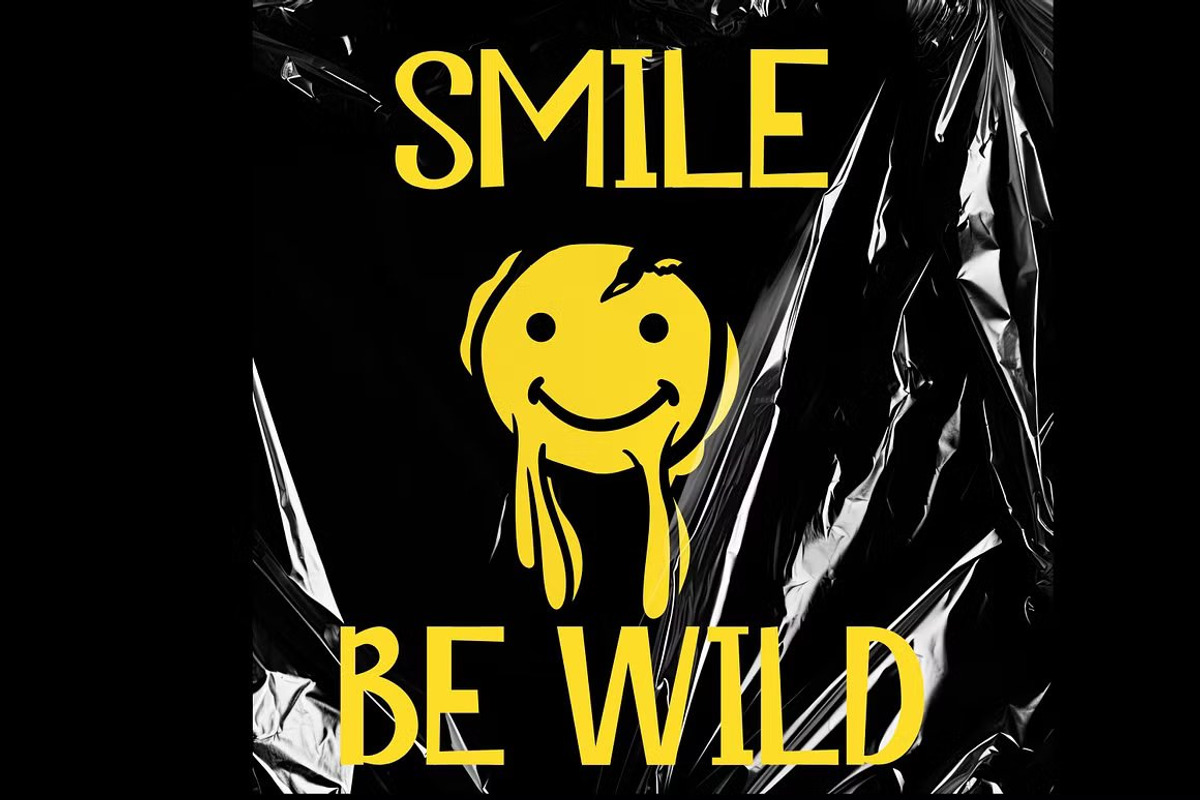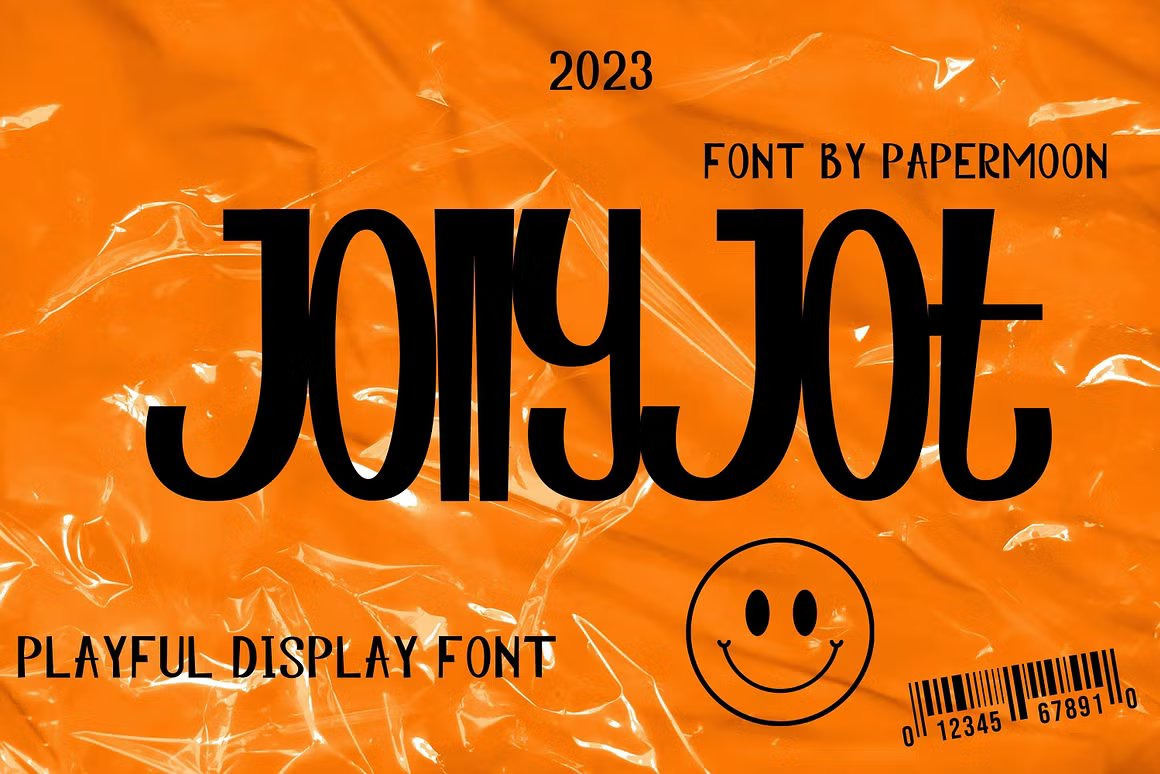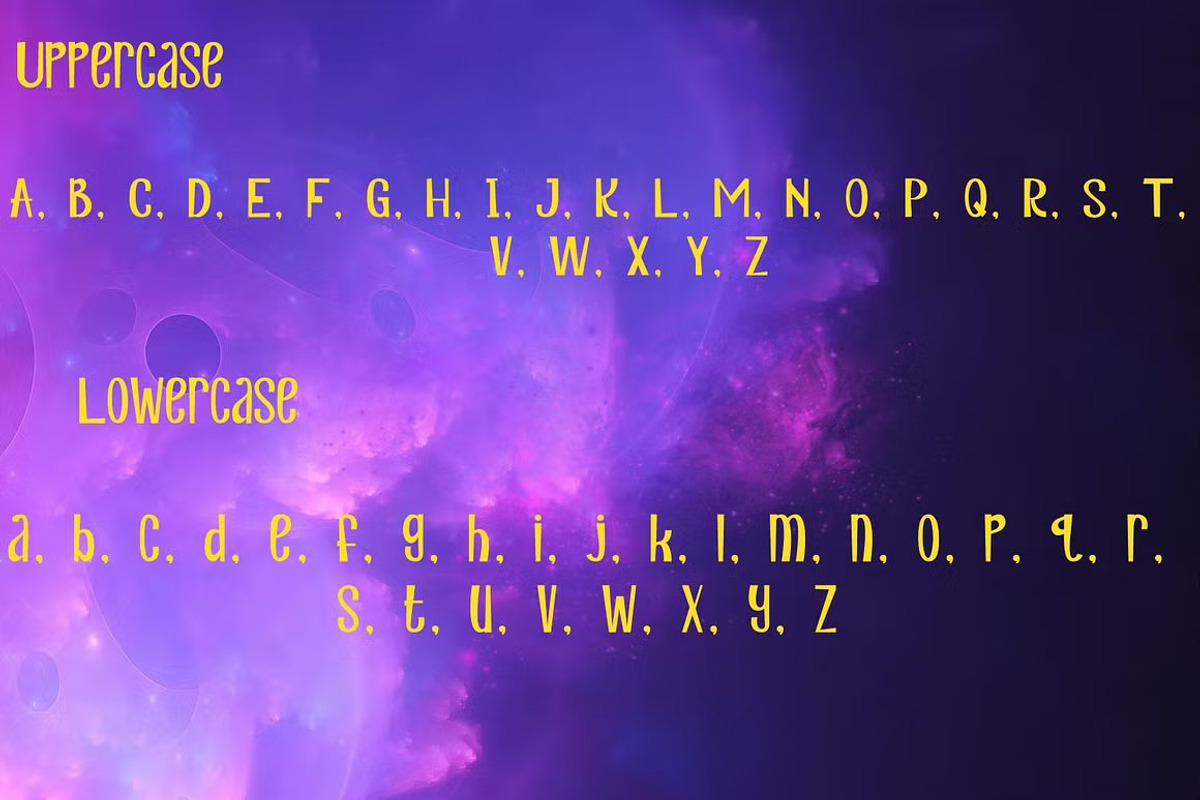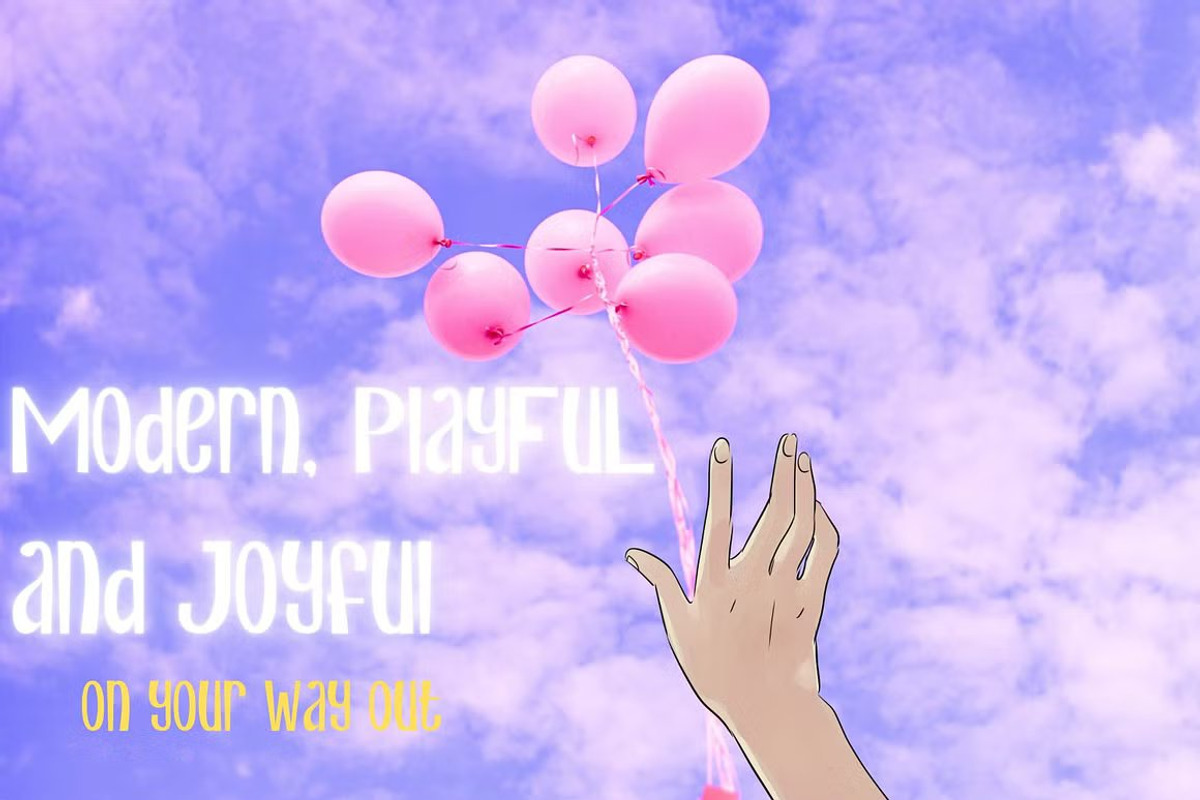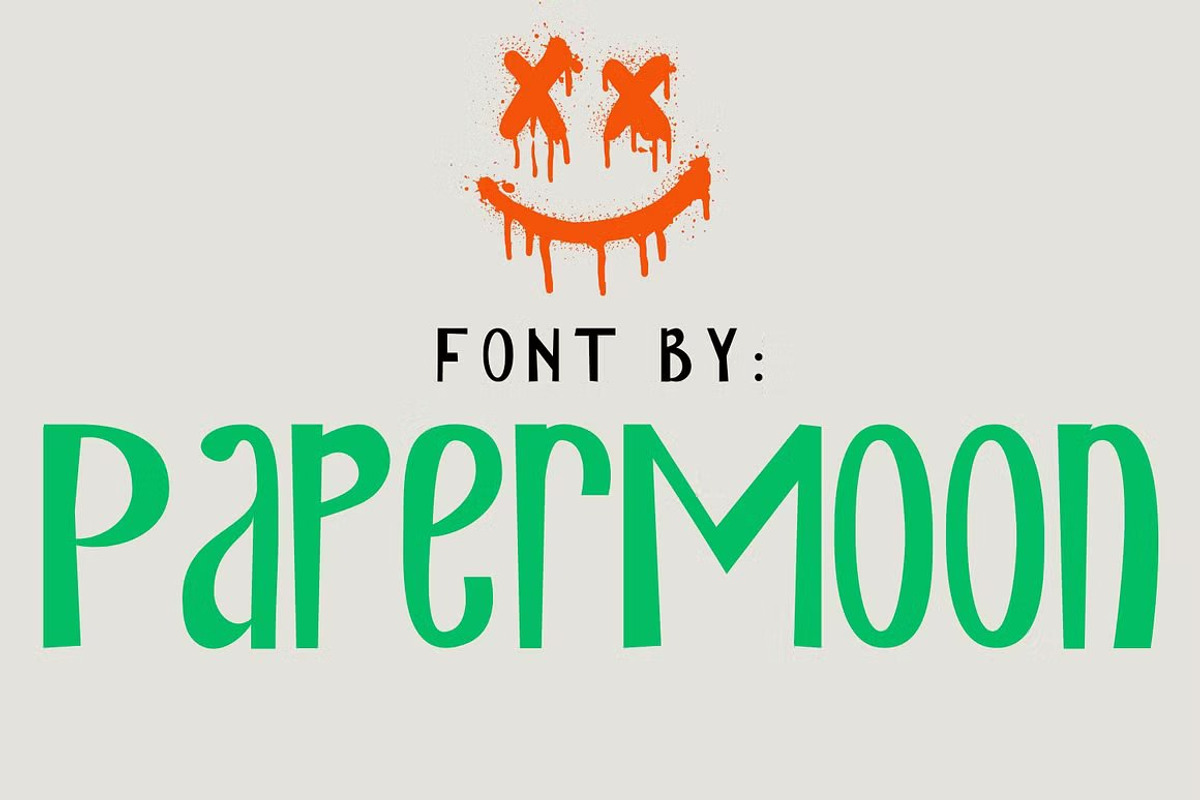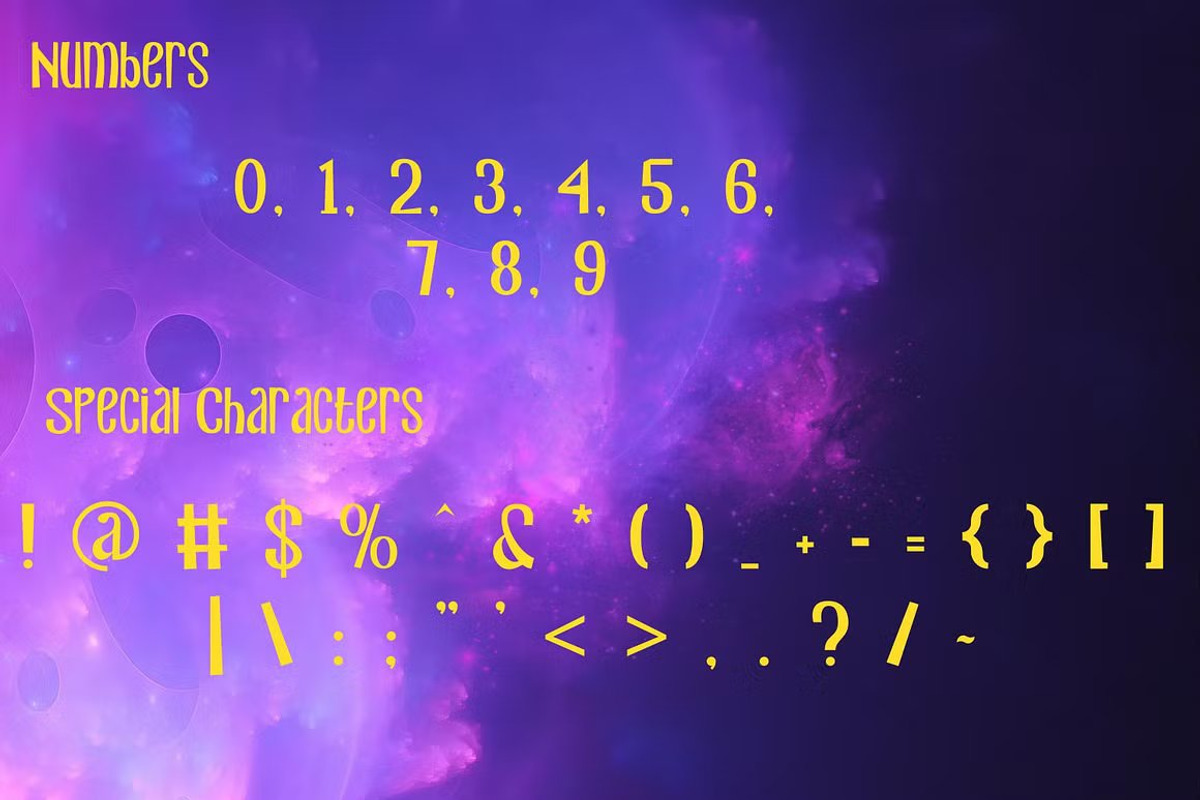
JollyJot Playful Display Font
Introducing JollyJot: A Whimsical Typeface for Joyful Creations
Meet JollyJot, a contemporary and playful typeface designed to bring a sense of merriment to your creative projects. With its blend of sophistication and charm, JollyJot is perfect for children-themed designs, personalized mugs, snack industry branding, word art for frames, and countless other delightful applications.
Bring joy and creativity to your projects with JollyJot, the perfect typeface to elevate your design work with a touch of whimsy and delight.